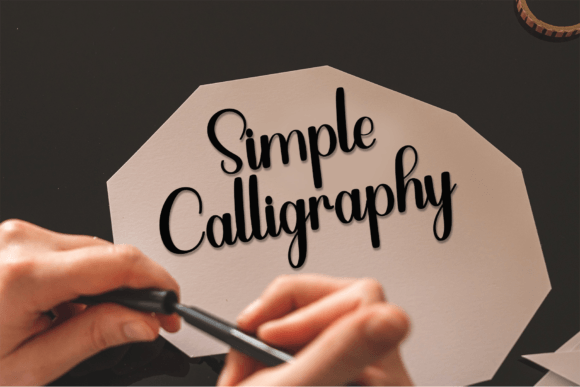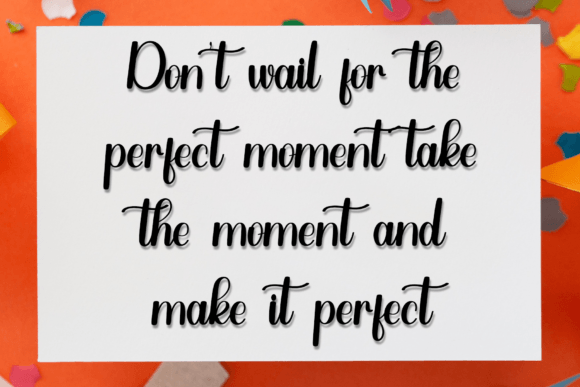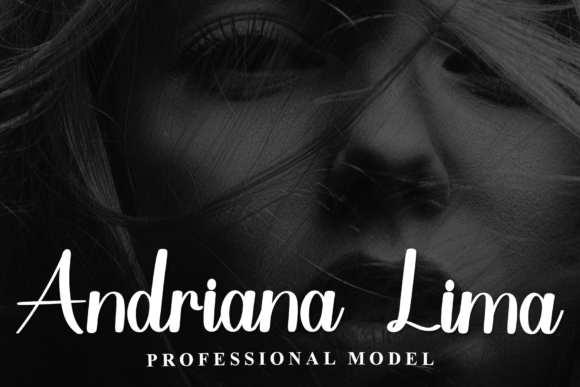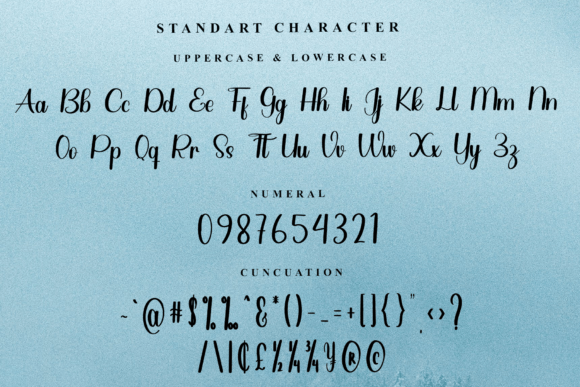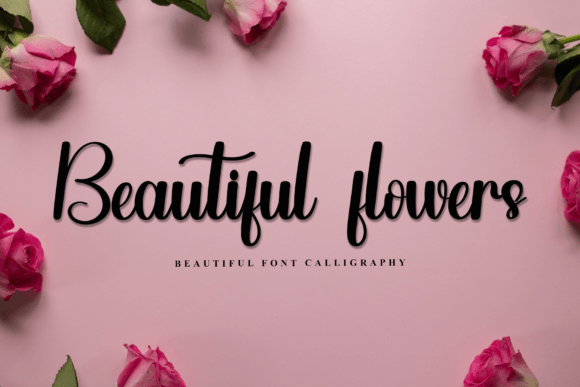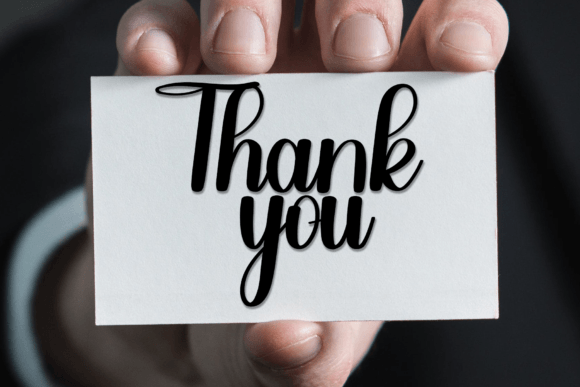
The Magic of Book Signature Font: Bringing Cheer to Your Designs
As a designer, there’s nothing quite like the feeling of creating something that captures the essence of the holiday season. You’re brainstorming ideas, experimenting with colors and typography, and suddenly – it clicks. The perfect combination of elements comes together, and you know you’ve got something special. For me, that moment often involves the Book Signature Font.
With its whimsical, decorative elements and unique flair, the Book Signature Font adds a touch of charm to your designs. Perfect for greeting cards, gift labels, and holiday-themed projects, this font brings a cheerful and nostalgic atmosphere to your words. As a designer, you know the value of a font that can elevate your work and make it truly special – and the Book Signature Font is just that. Whether you’re a seasoned pro or just starting out, this font is a must-have in your toolkit.
Key Features of Book Signature Font
- Font Size and Style: This font family includes multiple styles, ranging from light to bold, with font sizes that can be customized for optimal readability in various applications, including books, magazines, and digital media.
- Unique Characteristics: Book Signature Font features elegant, cursive script letters with a classic touch, making it suitable for formal and informal writing, including book titles, author signatures, and decorative text.
- Font Variations: This font family includes multiple font variations, including regular, italic, bold, and bold italic, providing users with a range of options to suit their writing needs and personal style.
Designer Review: Book Signature Font
Overall, I’d say the Book Signature Font is a solid addition to any designer’s toolkit. Here’s what I think works well: ✨
- Beautifully crafted letterforms that evoke a sense of elegance and sophistication.
- Excellent legibility, making it perfect for body text, captions, and even headlines.
- Wide range of OpenType features, including swashes, ligatures, and ornaments.
However, there are a few limitations I’d like to mention: ⚠️
- The font family is quite large, which can make it difficult to manage in complex projects.
- Lack of bold weights, which might limit its use in certain design applications.
- Some users have reported issues with kerning and spacing in certain languages.
In conclusion, the Book Signature Font is a great choice for designers who want to add a touch of sophistication to their work. While it’s not perfect, its strengths far outweigh its limitations. I’d definitely recommend it for any project that requires a beautiful, elegant font.
To get the most out of the Book Signature Font, use it sparingly to add a touch of elegance to your designs. Pair it with a clean and simple background to make it stand out. Experiment with different font sizes and colors to create a visually appealing effect.
The Book Signature Font is commonly used in book covers, author signatures, and literary-themed designs. It’s also used in wedding invitations, graduation announcements, and other formal events where a touch of elegance is desired.
Q: Are there any font size or spacing guidelines for using Book Signature Font effectively?
For optimal readability, it’s recommended to use Book Signature Font at a minimum size of 18-20 points. For titles or headings, you can use larger font sizes (up to 48 points) to create visual emphasis. Be mindful of line spacing (leading) to ensure the text remains legible and visually appealing.